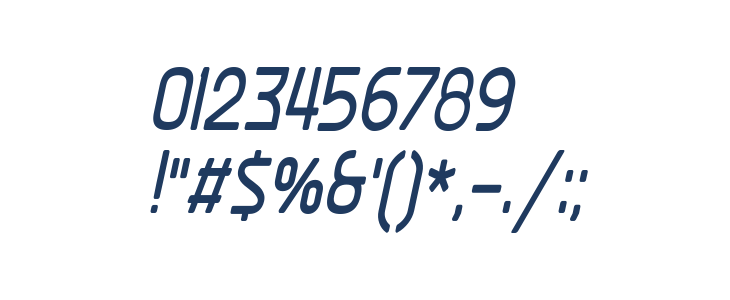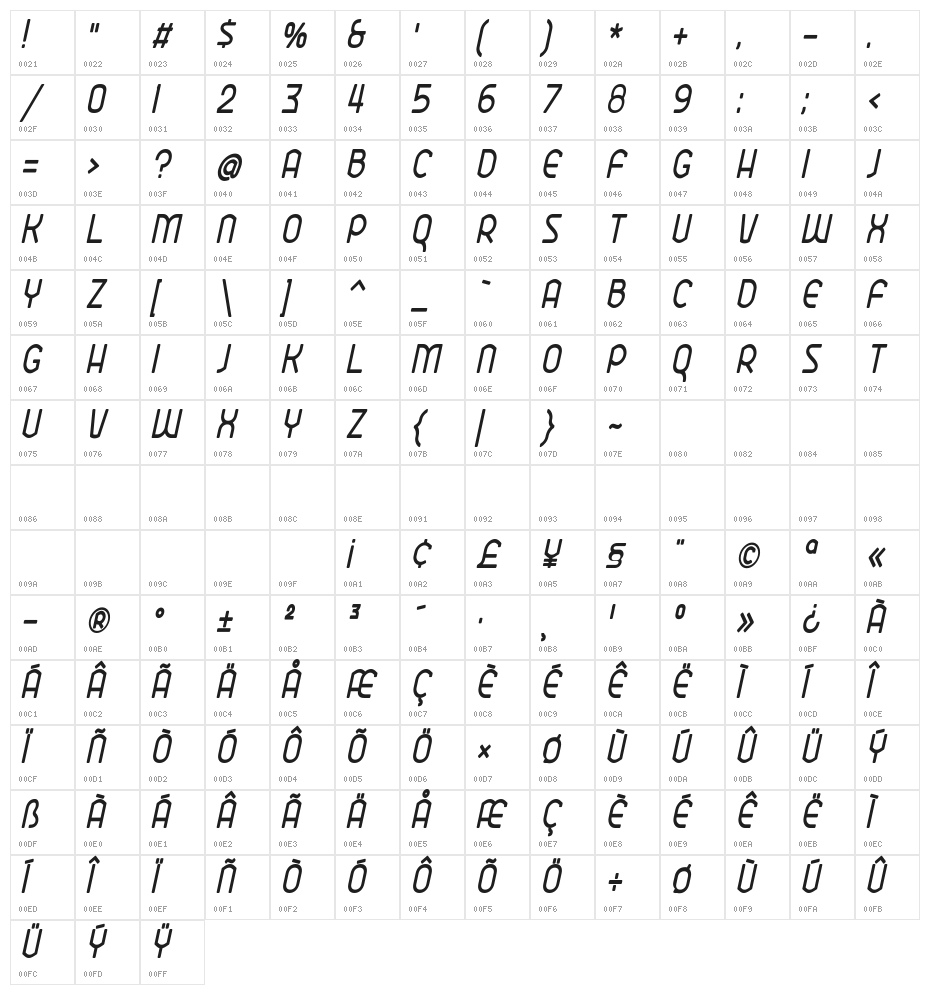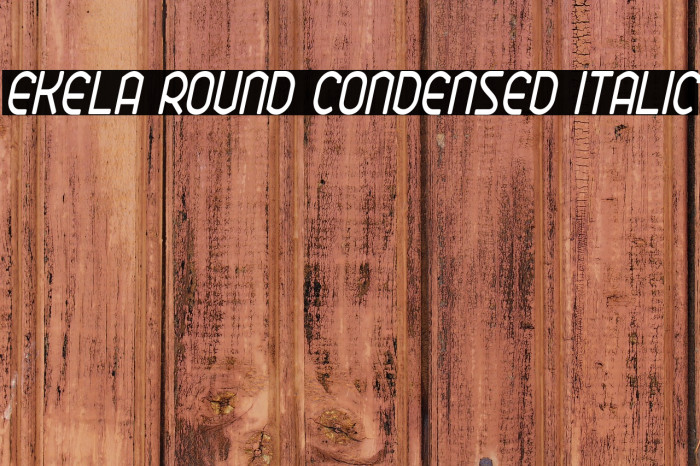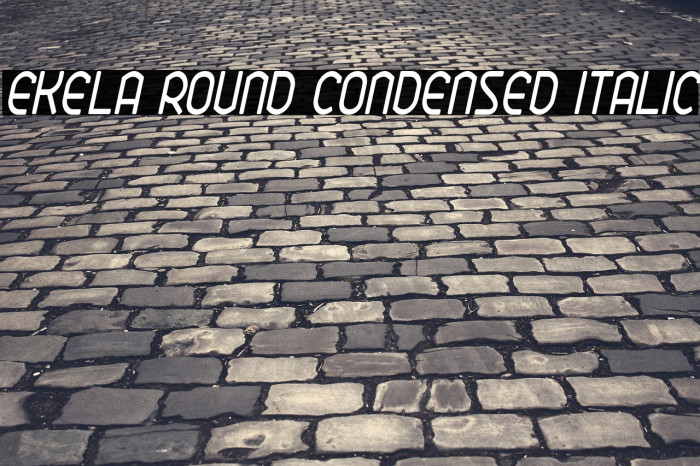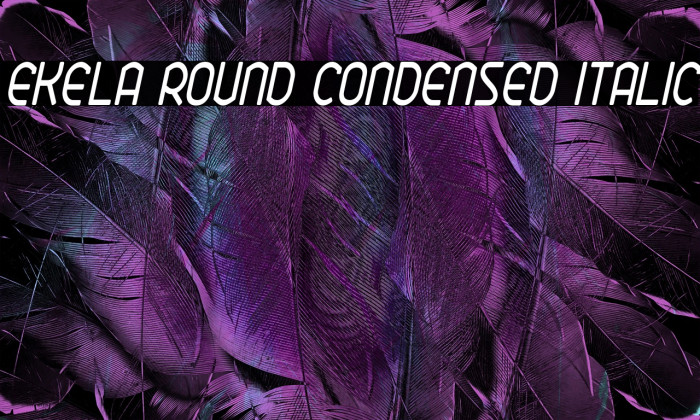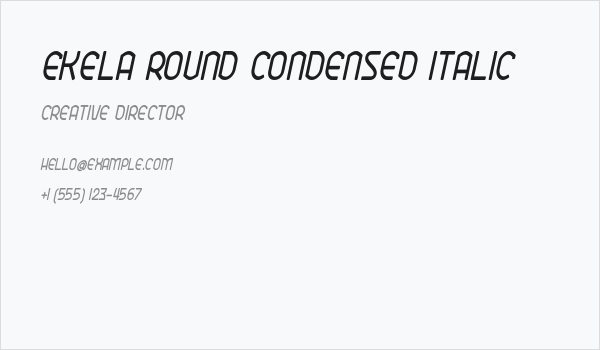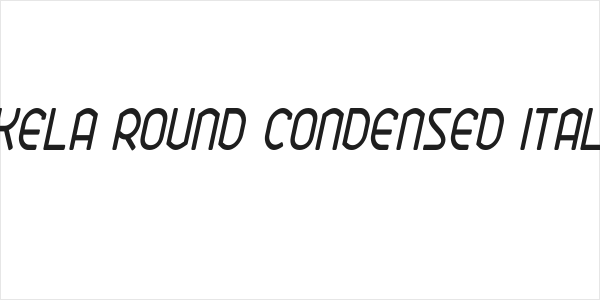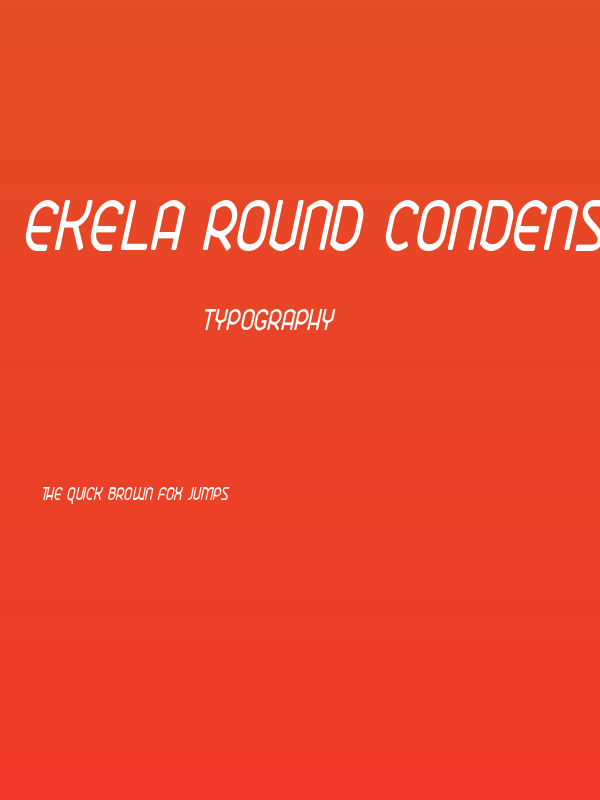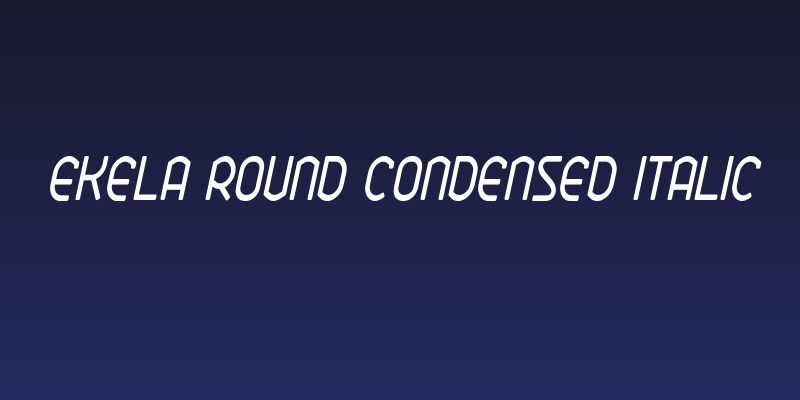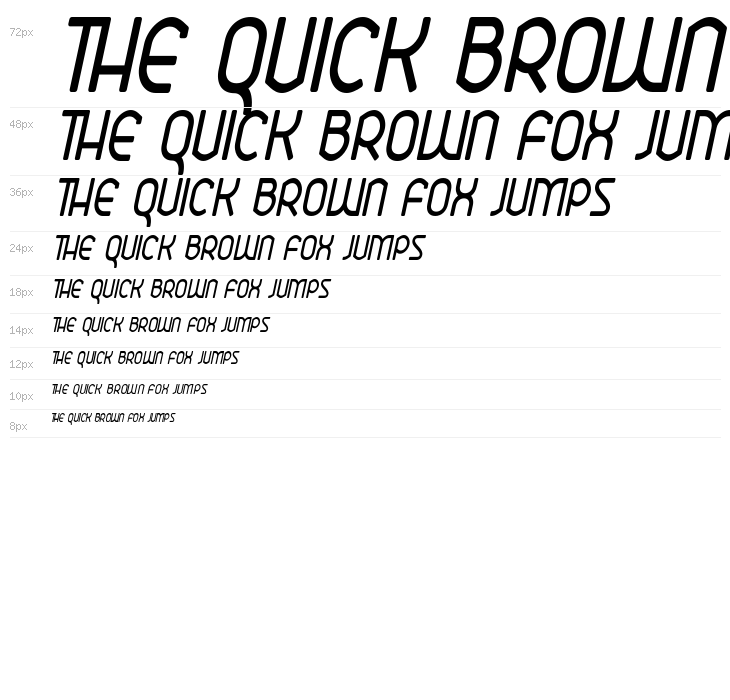
Ekela Round Condensed Italic Font
Ekela Round Condensed Italic Description
This font features a modern, rounded style with a condensed width, giving it a sleek and streamlined appearance. The italic slant adds a dynamic and forward-moving feel, making it ideal for contemporary designs. The characters are uniformly structured, with smooth curves and a consistent stroke width that enhances readability. The font includes a full set of uppercase and lowercase letters, numerals, and a variety of special characters, making it versatile for various applications. Its clean and polished look is suitable for both digital and print media.
| Proposed Projects | Ideal for branding, advertising, packaging, and web design projects that require a modern and dynamic touch. |